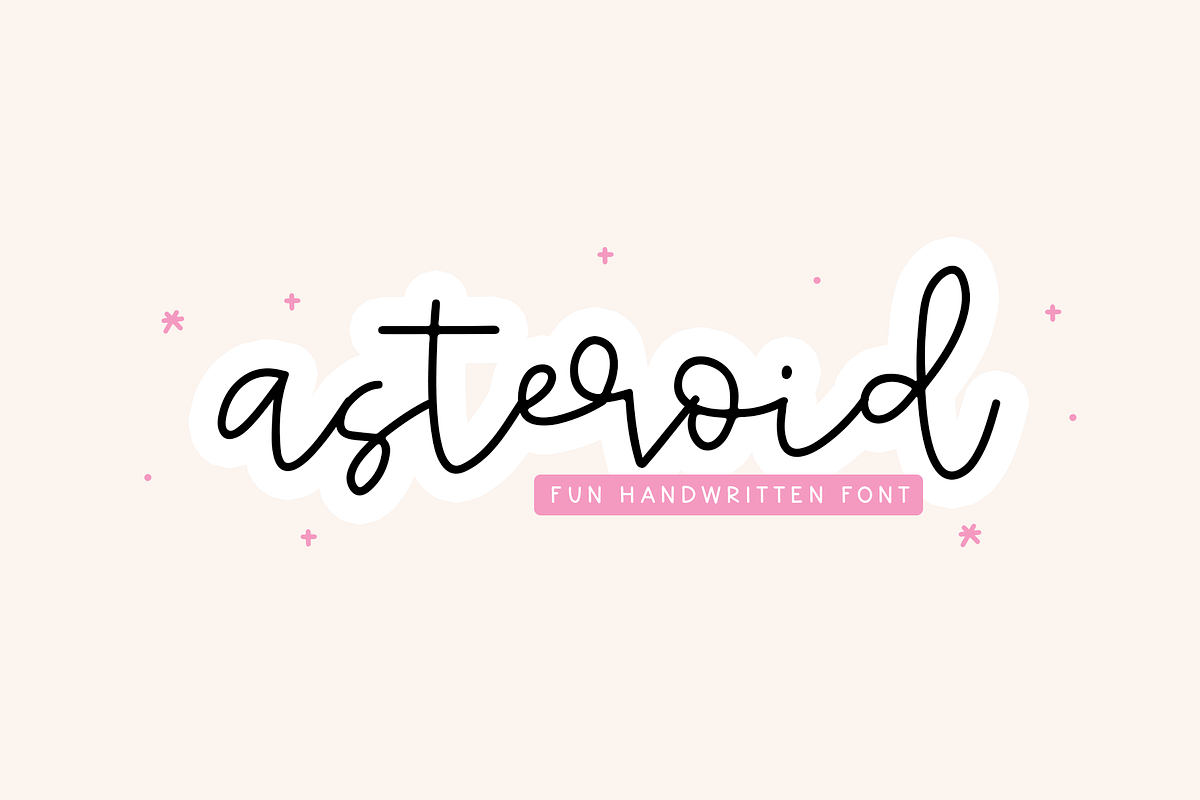
Asteroid | Handwritten Script Font Free Download is a playful and modern handwritten script typeface, designed to bring a personal touch to your projects. Perfect for branding, social media posts, invitations, and casual designs, Asteroid offers a friendly, fluid style that stands out. Please note that you must purchase this font for commercial use, but it is available as a free download for testing purposes. Add a touch of personality and charm to your creative work with Asteroid | Handwritten Script Font Free Download, and let your typography speak with authenticity.